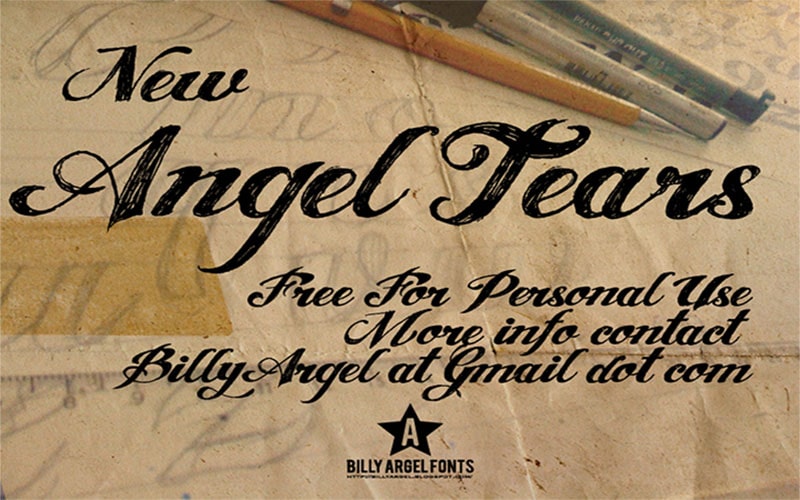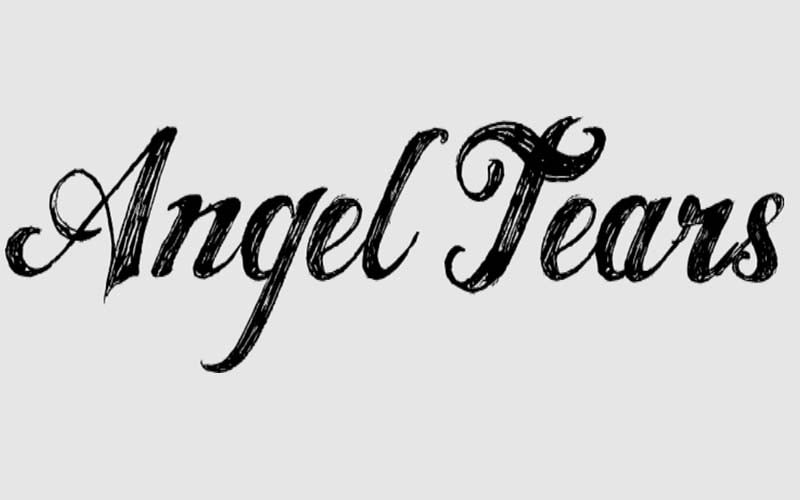
Angel Tears Font is a script, handwritten typeface that has come with a fashionable and fantastic nature of texture. Mr. Billy Argel is recognized as the primary designer who owns the rights to this typeface.
This font was uploaded in 2010. It’s a pleasing and beckoning typeface for your various ongoing projects. Its texture is light in some letters and dark in others.
All its texture is generated by the design using a pencil and multiple strokes in each letter. First, the designer creates all of the outlines, then he fills in all of the letters with a pencil.
Angel Tears Font
| Style: | Handwritten, Script Typeface |
| Font Designer: | Mr. Billy Argel |